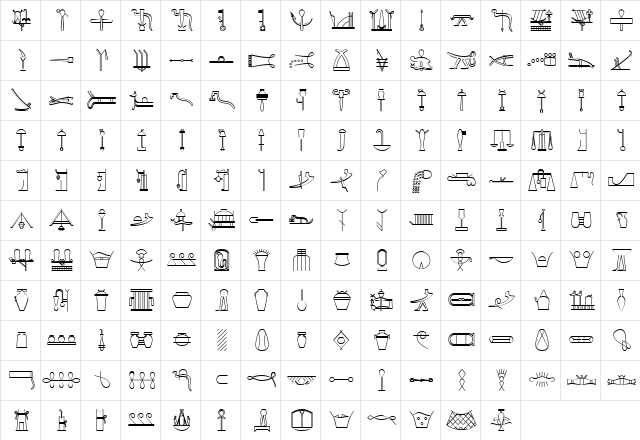
GlyphExtLibAB Medium Font Preview
GlyphExtLibAB Medium
Design Context for GlyphExtLibAB Typeface
GlyphExtLibAB is a composed and adaptable typeface that performs quietly and consistently across a wide range of design contexts.